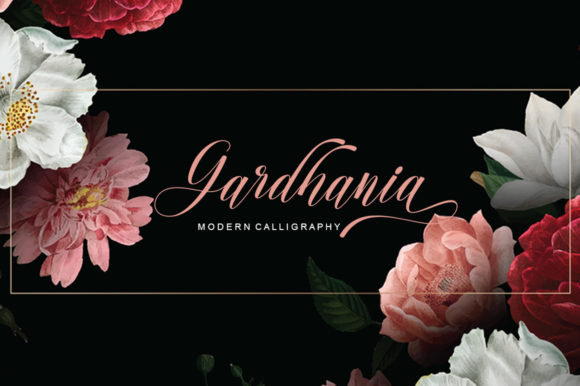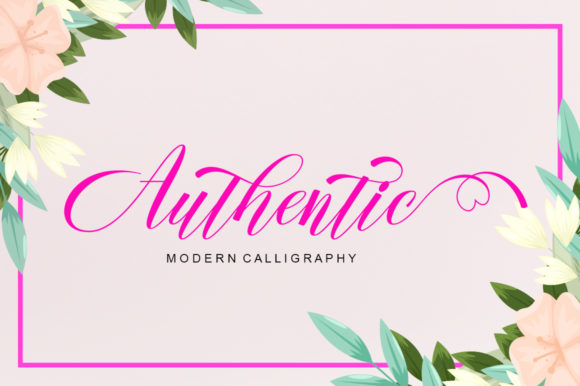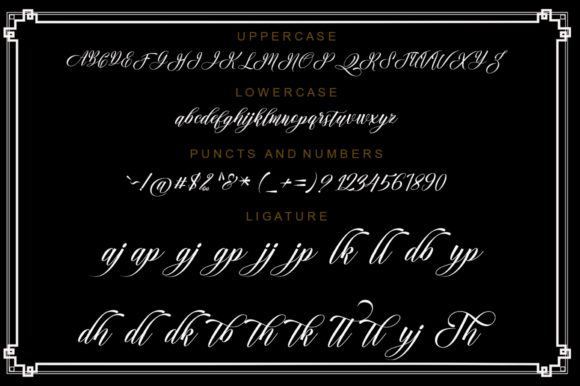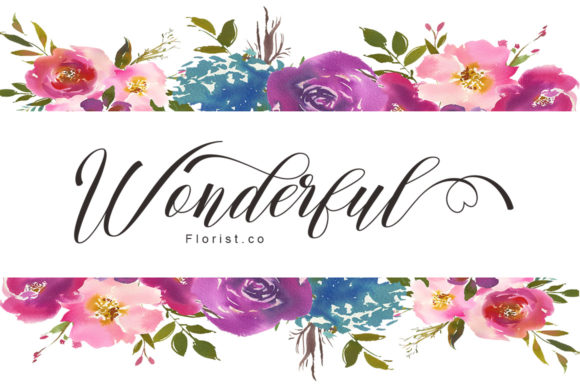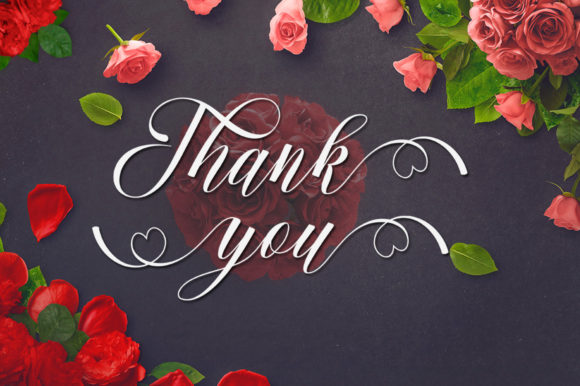
The Sweet Charm of Amanda Font: A Designer’s Delight
I still remember the time I was working on a wedding invitation project, and I just couldn’t find the perfect font to match the couple’s elegant yet playful vibe. I scrolled through page after page of Google search results, but nothing seemed quite right. That was until I stumbled upon Amanda Font – a sweet, soft hand-lettered script font that stole my heart. In this article, I’ll share my love for Amanda Font, its features, and how to make the most of it in your designs.
An Honest Review of Amanda Font
What I Love About Amanda Font
- ✨ Sweet and Soft Aesthetic: Amanda Font has a gentle, hand-crafted feel that adds a touch of warmth to any design.
- ✅ Highly Versatile: From wedding invitations to social media posts, Amanda Font adapts seamlessly to various design contexts.
- 💕 Elegant yet Playful: This font strikes the perfect balance between sophistication and whimsy, making it ideal for a wide range of projects.
While Amanda Font is a beautiful addition to any design, there are a few things to keep in mind:
- 🤔 Limited Use in Body Text: Due to its script nature, Amanda Font might not be the best choice for lengthy body text. It’s perfect for headings, titles, and short paragraphs, though!
- ⚠️ Glyph Limitations: As with any font, there might be limitations to the number of glyphs available. However, Amanda Font offers a delightful range of OpenType features to enhance your designs.
The Story Behind Amanda Font
Amanda Font was created with love and care by a talented designer who aimed to craft a font that feels both personal and approachable. The designer’s inspiration came from traditional hand-lettering techniques, combined with a modern twist to make the font versatile and fresh. Although the real story behind Amanda Font might be fictional, its charm and appeal are undeniably real.
| Font Name | Amanda Font |
| Author | Viewtype |
Q: Is Amanda Font suitable for body text?
A: While Amanda Font is stunning for headings and titles, it’s not ideal for lengthy body text due to its script nature. For body text, consider pairing it with a clean, sans-serif font.